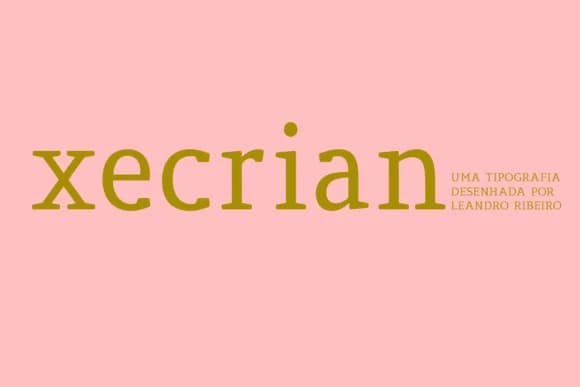
Thulu is a slab serif typeface designed by lerima with substantial, confident letterforms that give layouts real visual presence and weight. The blocky serifs and solid construction make it ideal for work that needs to command immediate attention without feeling stuffy or locked into the past. It's the kind of typeface that knows its role and owns it.
You'll find Thulu working beautifully when anchoring editorial headlines in print magazines and across book covers, bringing quiet authority to luxury skincare packaging and indie cosmetics labels, strengthening advertising campaigns that demand both substance and visual punch, and grounding restaurant menus and high-end hospitality branding. The typeface flows naturally between display sizes and handles body copy with solid legibility, giving designers genuine flexibility to work across varied composition challenges and layout needs. Its comprehensive multilingual character set means global projects and international brands get consistent typographic voice across different writing systems and languages without any compromise or loss of character.
Thulu works best for designers and independent brands seeking a slab serif that reads as thoroughly modern rather than vintage-inspired, one that projects genuine confidence without any aggressive edge. You can find it on Creative Fabrica and add it to your active working font library.
Thulu Font is a slab serif font that shines as a display or heading face. Pair it with a clean sans-serif or serif font for body text β the contrast creates a clear hierarchy while the two styles stay balanced and easy to read.
Thulu Font
by lerima